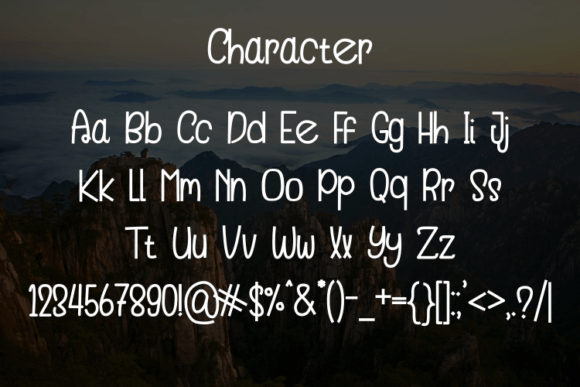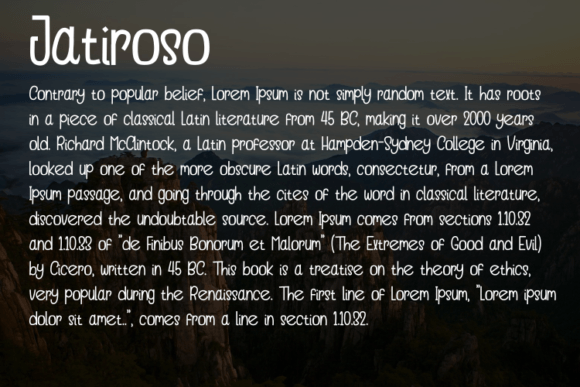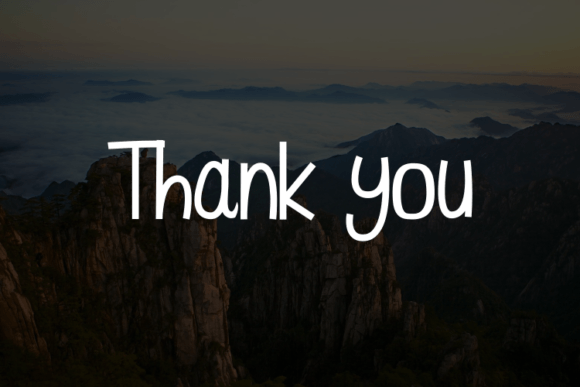
Jatiroso Font
About Jatiroso Font
Jatiroso stands as a distinctive script typeface, celebrated for its seamless fusion of simplicity and modern aesthetics. Its clean lines and contemporary charm render it the perfect choice for projects demanding an air of elegance and luxury. Whether crafting a refined logo, designing captivating book or movie titles, establishing a distinctive identity for fashion brands, gracing the pages of opulent magazines, or enhancing the visual impact of fonts and quotes, Jatiroso emerges as a versatile companion with an innate ability to elevate creative expressions.
The typeface’s allure lies in its ability to effortlessly blend with various design elements, adding a touch of sophistication to diverse projects. Its versatility allows it to adapt seamlessly to different contexts, ensuring that it remains a consistent choice for those seeking a timeless quality. Jatiroso’s understated beauty transforms ordinary designs into visually striking creations, making it a preferred option for individuals and businesses alike.
Beyond its functional aspects, Jatiroso transcends conventional design boundaries to become an integral part of artistic expression. Its simplicity and captivating style breathe life into words, turning quotidian quotes into visually arresting statements. Whether adorning the pages of a high-fashion magazine or gracing the labels of premium clothing collections, Jatiroso proves its adaptability and lasting impact.
In essence, Jatiroso is not merely a script typeface; it represents a harmonious blend of timeless elegance and modern allure. Its capacity to enhance a wide array of design projects, from logos to fashion brands, signifies its standing as a go-to choice for those seeking to infuse their creations with a touch of sophistication. As a design element, Jatiroso doesn’t just communicate; it resonates, creating a lasting impression that extends far beyond the realms of traditional typography. With its 400 words, this portrayal encapsulates the multifaceted appeal of Jatiroso, a script typeface that transcends trends and stands as a symbol of enduring style in the ever-evolving world of design.